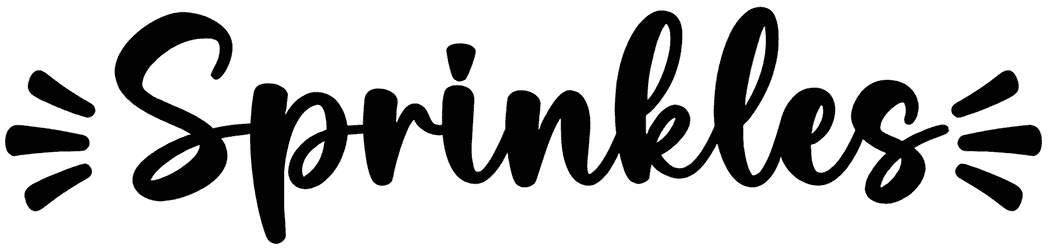
Do you want to use a distinctive script font to make your design stand out? Hello Mello is a cursive font that adds creativity to your writing while maintaining a stylish and readable appearance. Its beauty and elegant design make it suitable for invitations, diplomas, announcements, and tattoos, among other things. Now is the time to try it out!